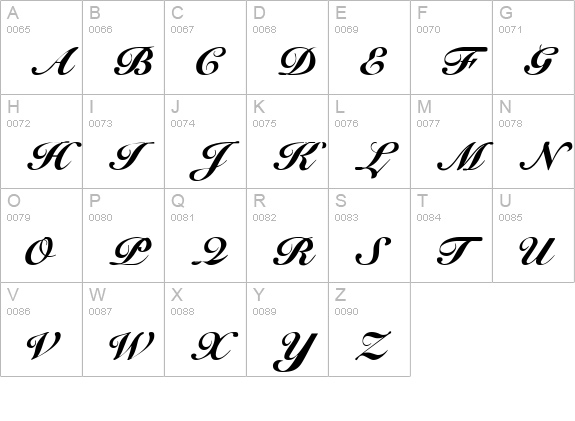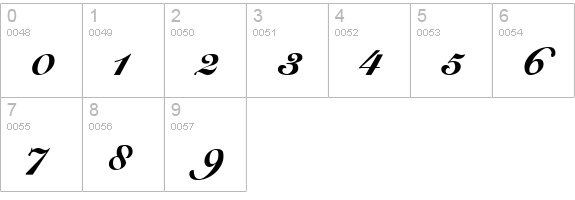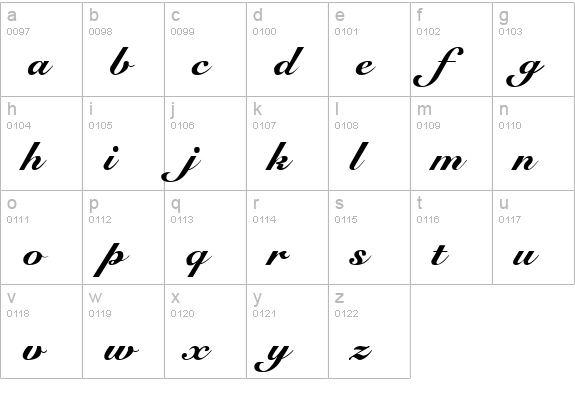
Elegant Script Normal Font Details
Elegant Script Normal is the standard, neutral variant in the Elegant typeface family \xE2\x80\x94 well suited to general body text, paragraphs, and standard typographic work.
Elegant Script Normal font is a sophisticated and graceful typeface that exudes elegance and charm. With its flowing lines and intricate details, this font is perfect for adding a touch of refinement to any project. Whether you're designing wedding invitations, elegant logos, or stylish branding materials, Elegant Script Normal font is sure to impress. Best of all, this stunning font is available for free download at FontsMarket.com. Simply visit the website to access this beautiful typeface and elevate your designs with its timeless appeal. Don't miss out on the opportunity to enhance your projects with the classic beauty of Elegant Script Normal font - download it today and add a touch of sophistication to your creations.